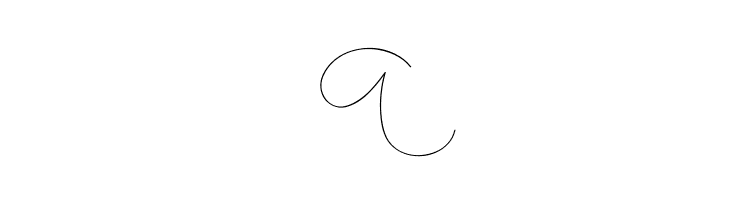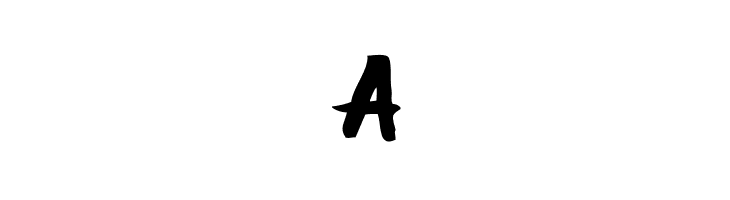
• Chocolatte
A geometric, angular font with a modern, tech-inspired design.
• chocoleta
A bold, hand-painted style font with expressive, uneven edges.
• chocoleta
A bold, hand-painted style font with dynamic, brush-like strokes.
• ChocoRomance-SanSerifDEMO
A playful, hand-drawn font with a bold, rounded style.
• ChocoRomance-ScriptDEMO
A playful, handwritten script font with bold uppercase and fluid lowercase letters.
• Choerunnisa Demo
A delicate and flowing script font with elegant, cursive letterforms.
• Choges Regular
A bold, high-contrast serif font with pronounced serifs and a classic style.
• Choir
A bold, layered font with a three-dimensional outline effect.
• Chokie Crossline Style
A modern, crossline decorative font with thin, elongated letterforms.
• Choko
A bold, bubbly, and three-dimensional font with a playful, glossy appearance.
• Choko Highlight
A decorative and artistic font with fluid, sweeping strokes and high contrast.
• Choko Milky
A playful, bold script font with smooth curves and lively style.
• Choko Outline
A bold, playful font with thick, rounded characters and a bubbly appearance.
• Choko Plain
A bold, rounded font with a playful and friendly style.
• Choko Shadow
A decorative font with a shadow effect, blending script and display styles.
• Cholaros
A flowing, cursive font with elegant, sweeping strokes and a sophisticated appearance.
• Cholasette Free Regular
A dynamic and expressive handwritten font with fluid, flowing letterforms.
• Cholis
A dynamic, expressive handwritten font with bold, fluid strokes and a modern, playful aesthetic.
• Chollatte Regular
A bold, flowing script font with dynamic and elegant characteristics.
• Cholo Letters Demo
A bold, angular font inspired by Chicano street art with a strong, edgy style.
• Chomiku 3D Regular